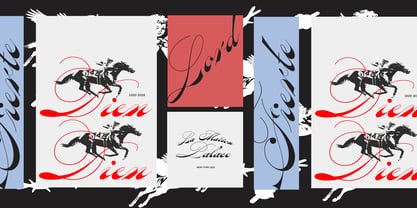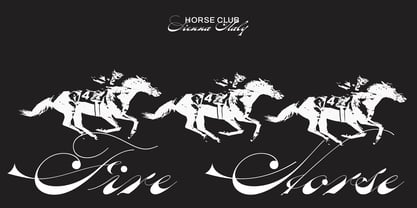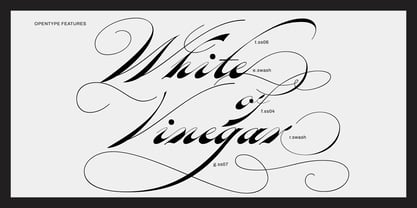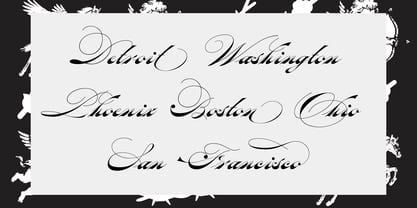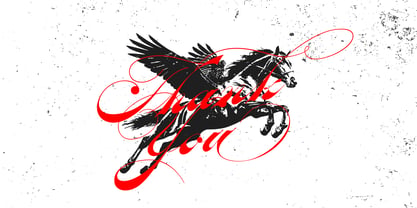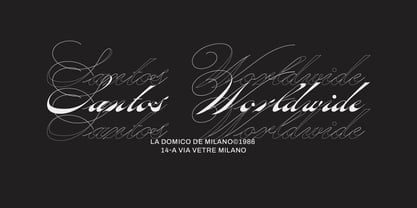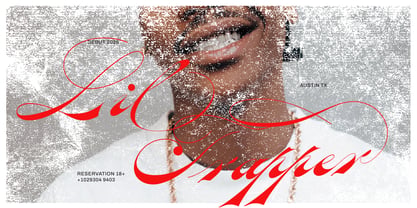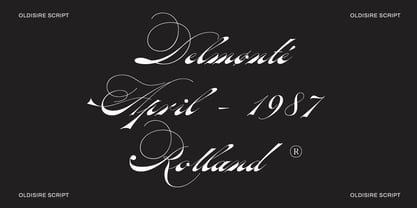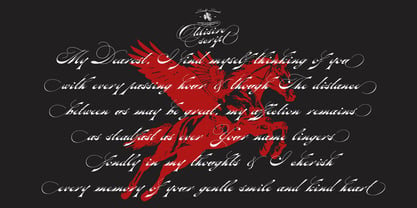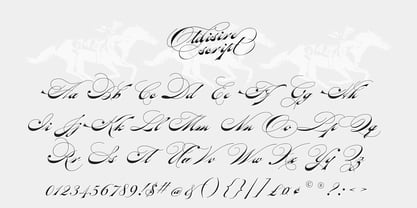
Oldisire Script
por Jolicia Type
La familia tipográfica Oldisire Script fue diseñada por Laire Banyu y publicada por Jolicia Type. Oldisire Script contiene 1 estilos. Más información sobre esta familia
Oldisire Script is an elegant vintage script font that draws inspiration from the graceful lettering and refined penmanship of the Spencerian era. Featuring dramatic flourishes, sweeping curves, delicate connections, and expressive letterforms, Oldisire Script embodies the timeless charm of 19th-century American calligraphy while introducing a bold and sophisticated contemporary character. This font is designed with flowing swashes, beautiful ligatures, and stylistic alternates, enabling you to create expressive and luxurious typography with an authentic handcrafted feel. Its elegant rhythm and intricate details ensure that every word resembles a piece of classic engraved lettering, making it perfect for branding, invitations, editorial design, and more.
Diseñadores: Laire Banyu
Fundición: Jolicia Type